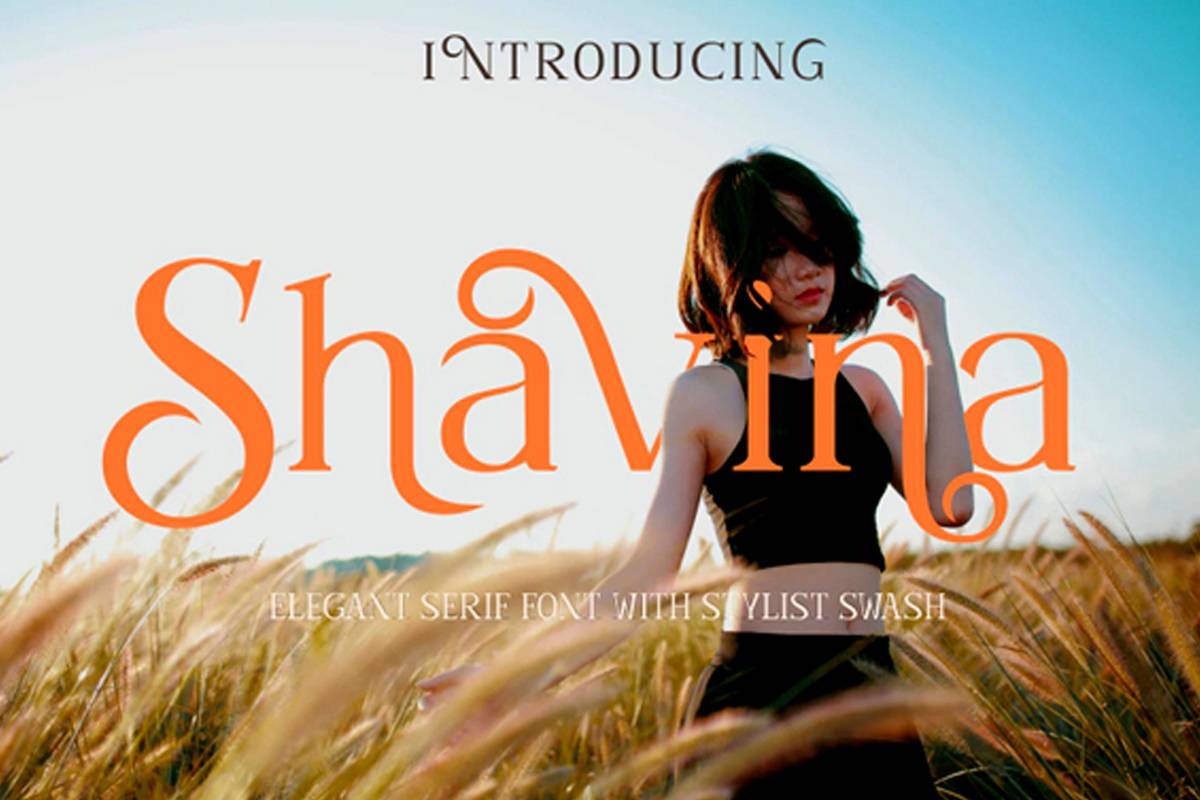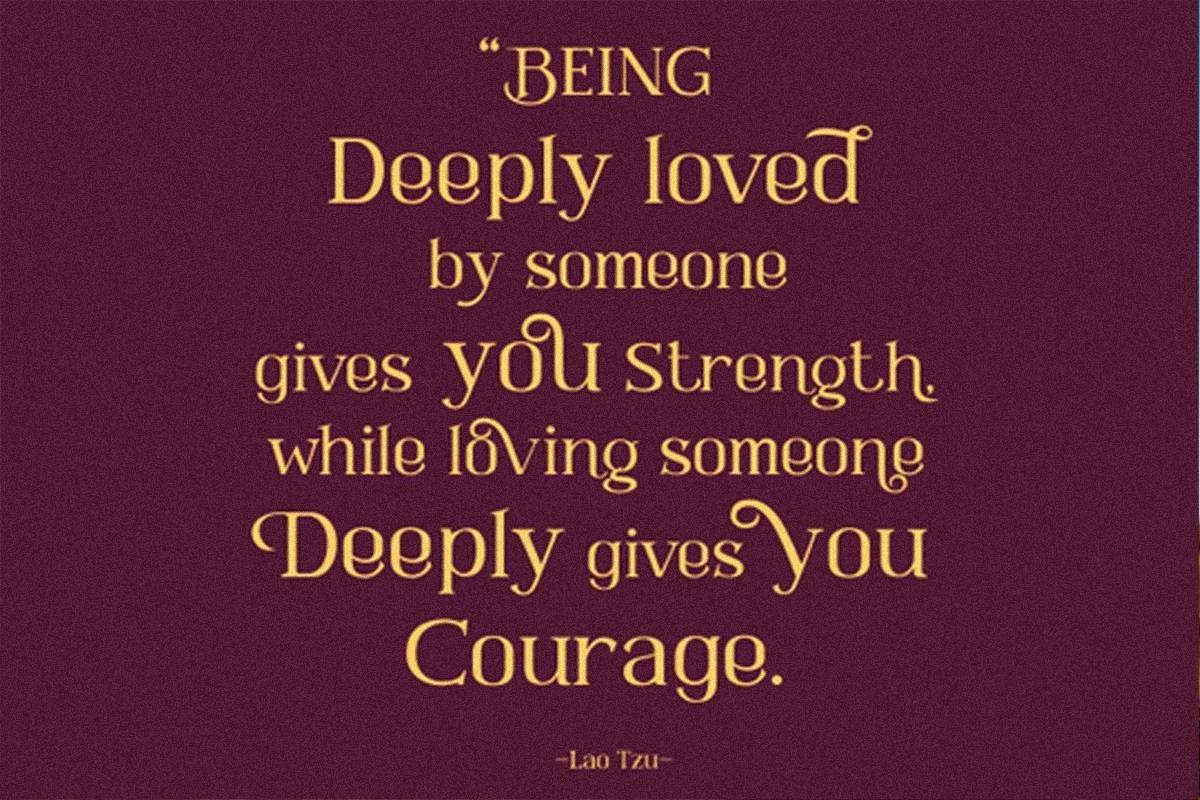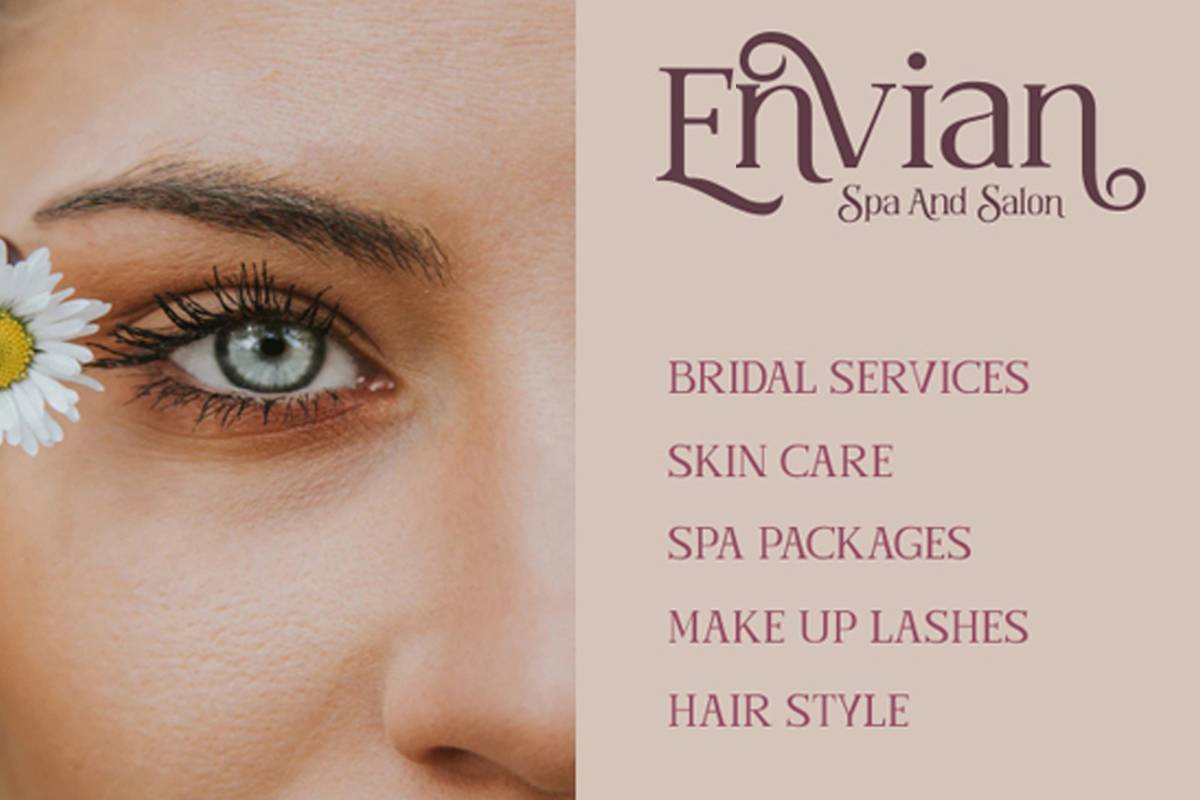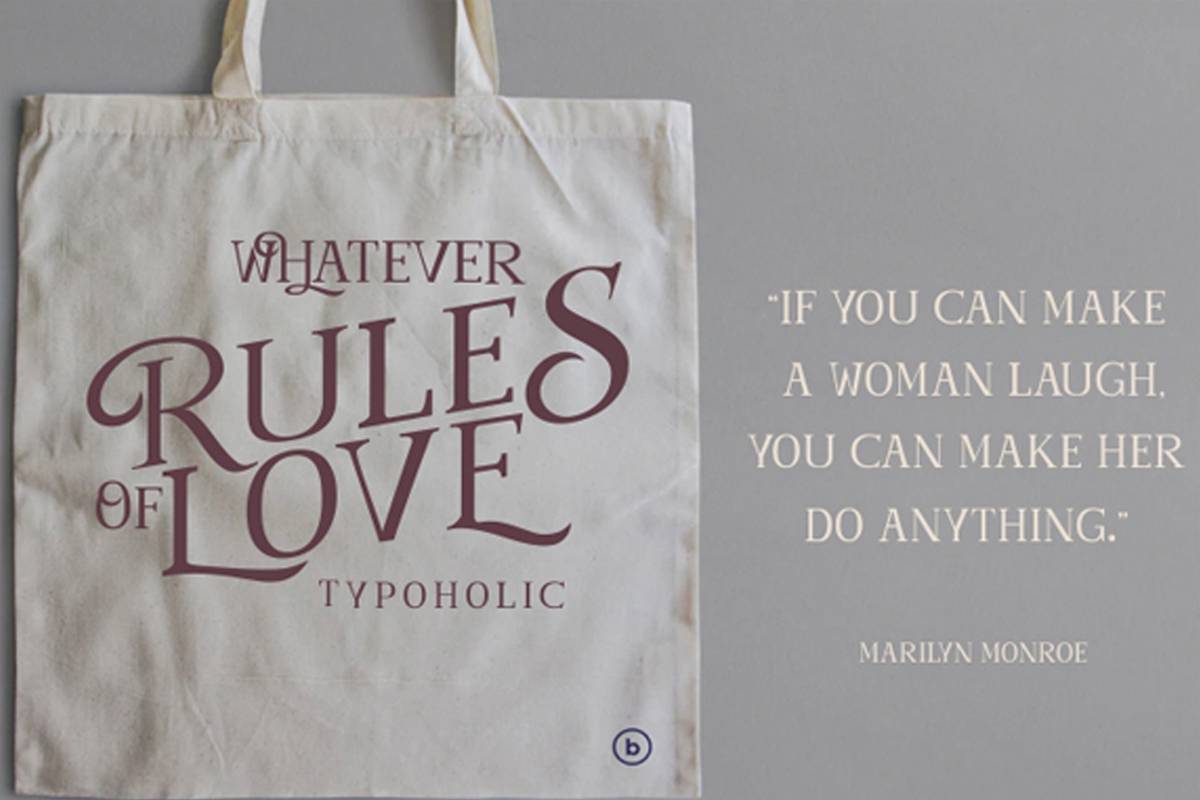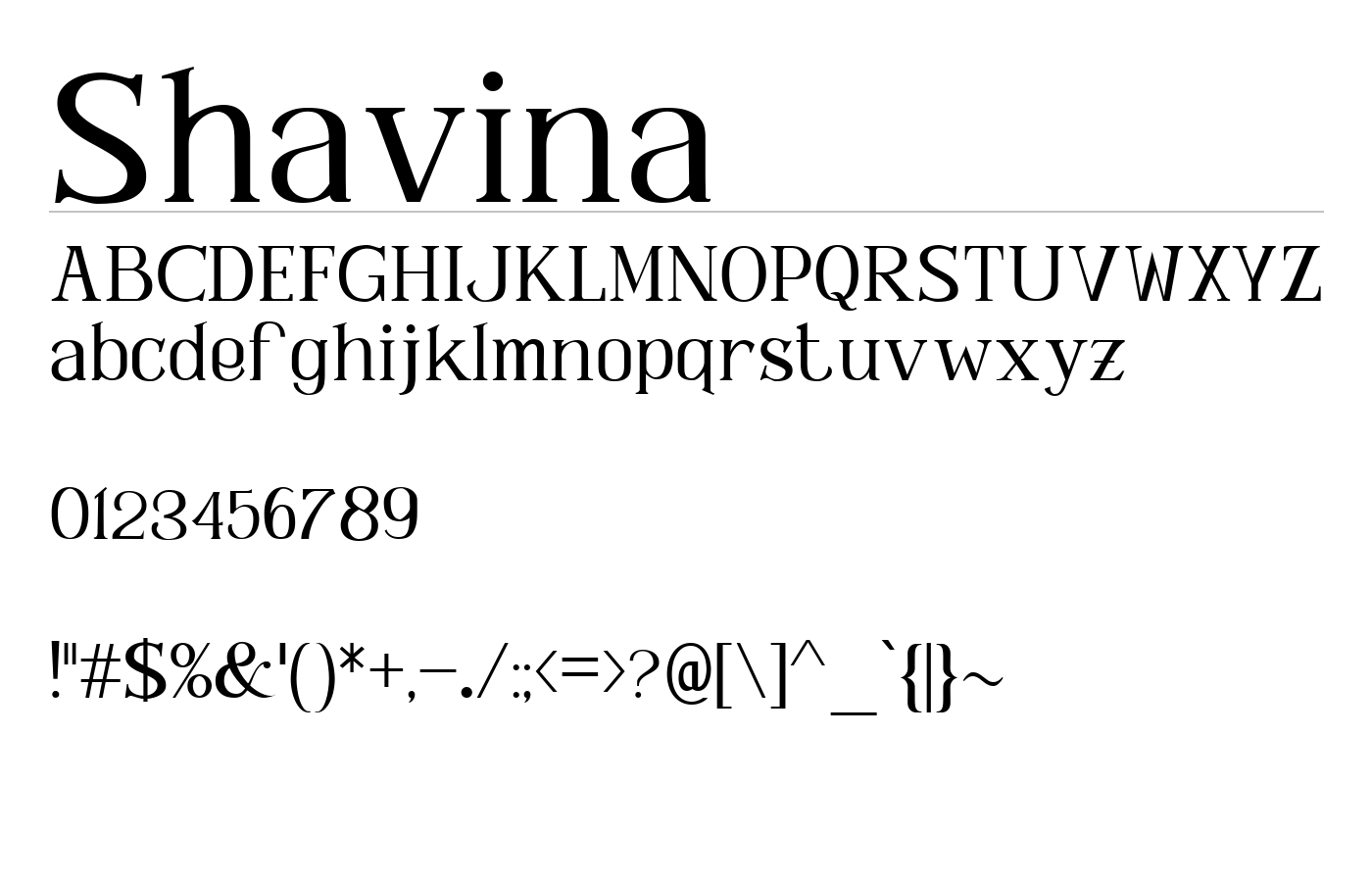
Shavina is an elegant serif font with high contrast between thick and thin strokes, featuring sharp, refined serifs that give it a classic yet sophisticated feel. Its tall x-height and clean lines make it ideal for luxury branding, editorial layouts, and headlines where a timeless and polished impression is desired. This font works beautifully in contexts that require both readability and a touch of refinement.
Shavina Font
About Shavina Font
| Font family | Shavina Font |
| Designer | Moh. Taufiq |